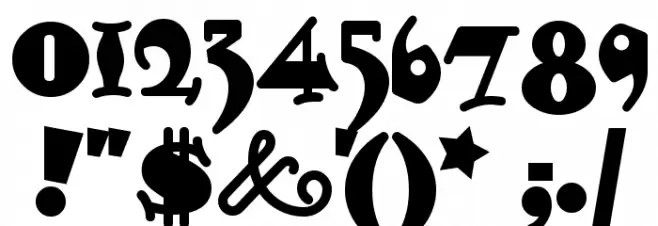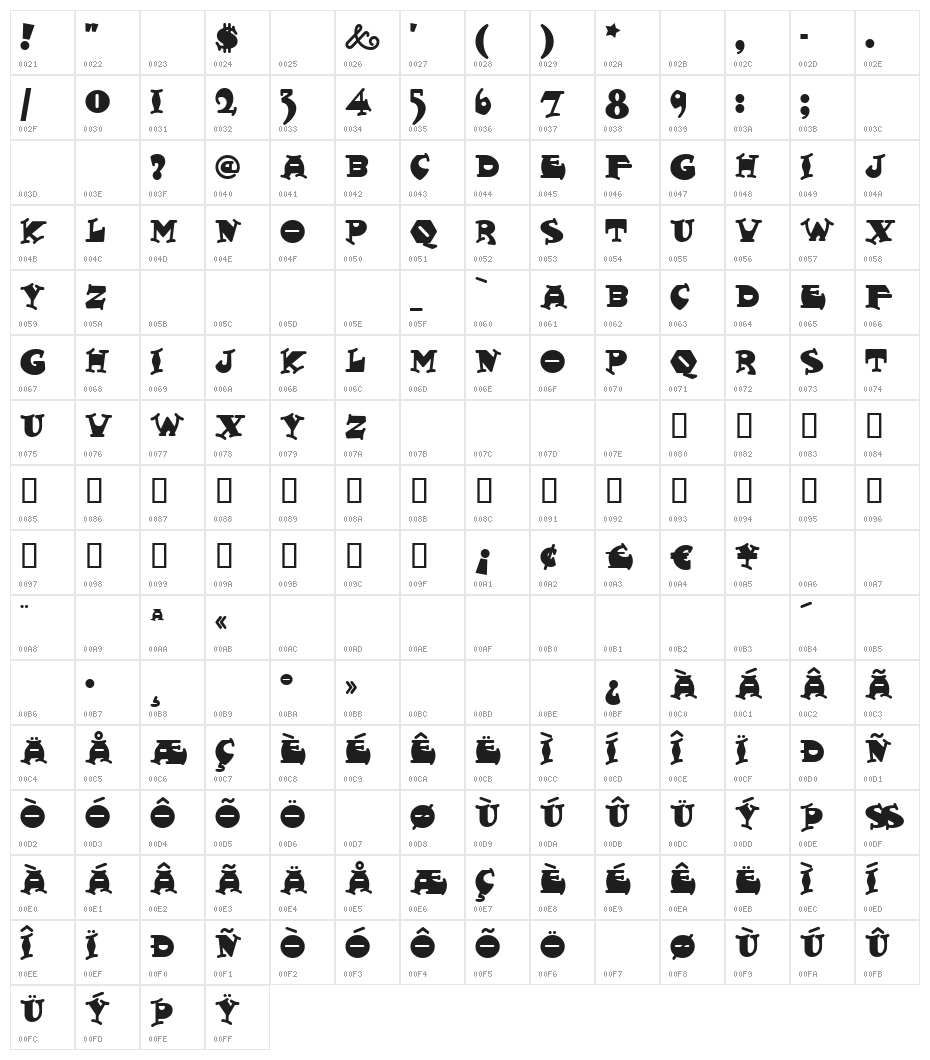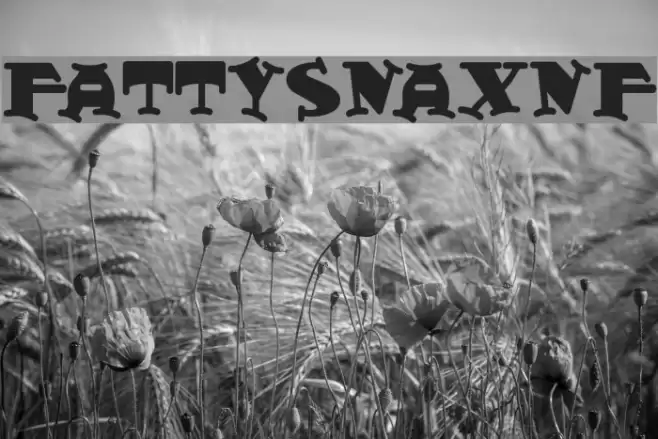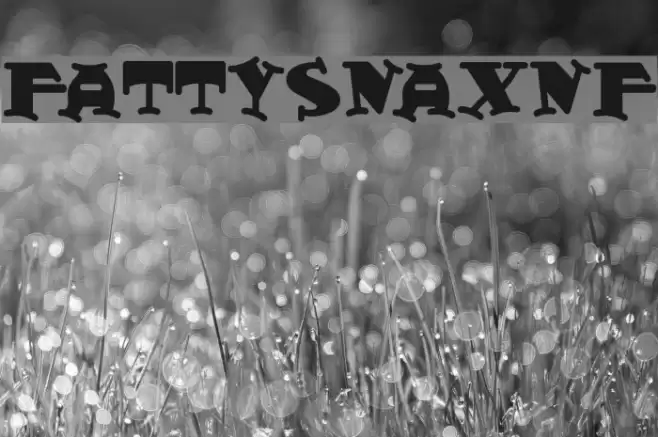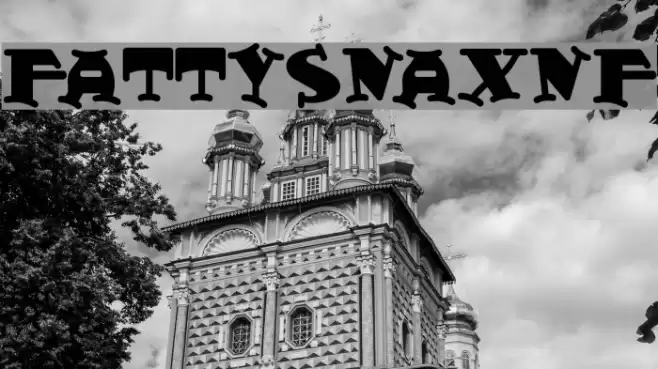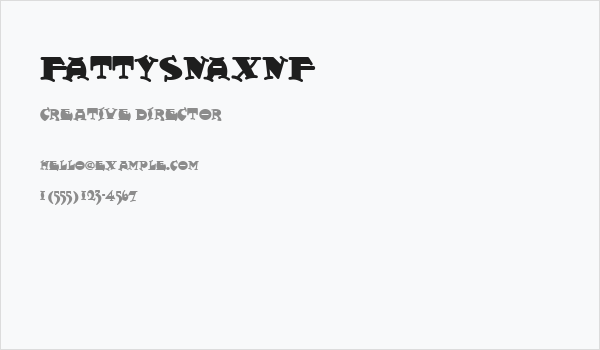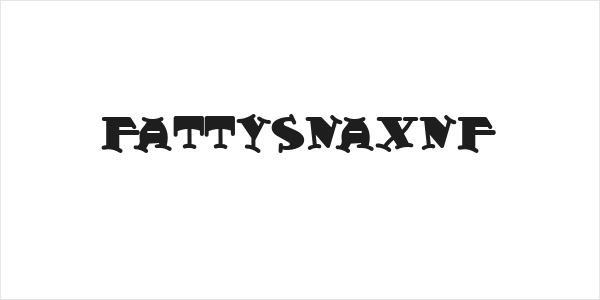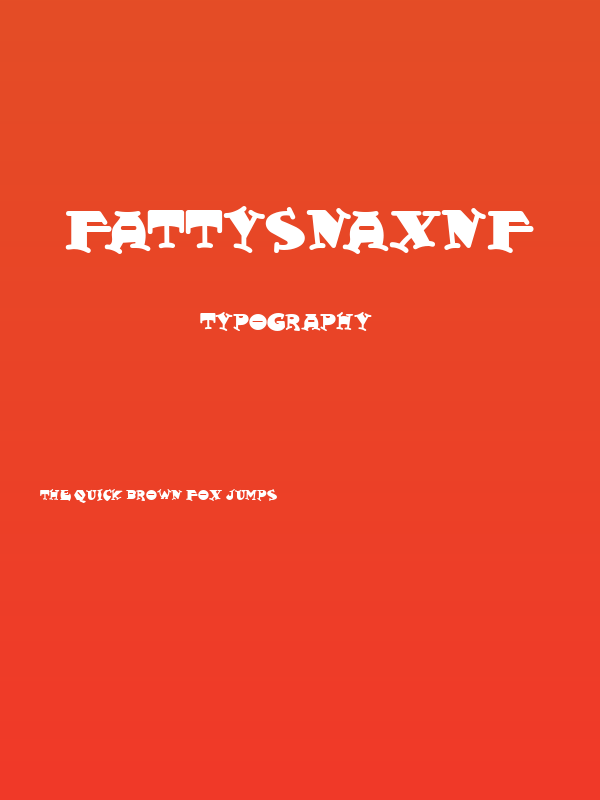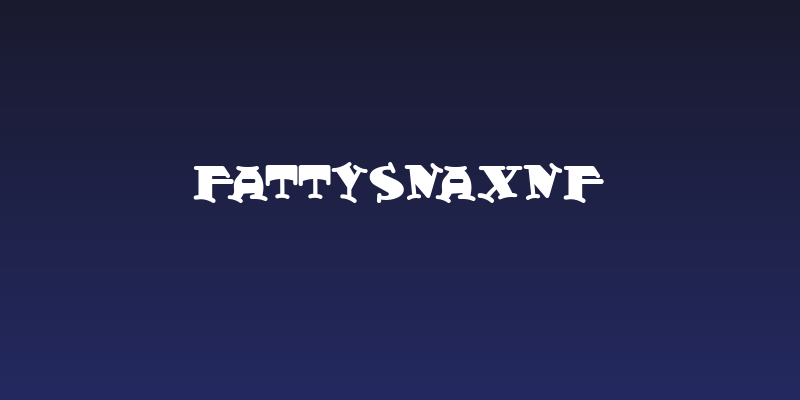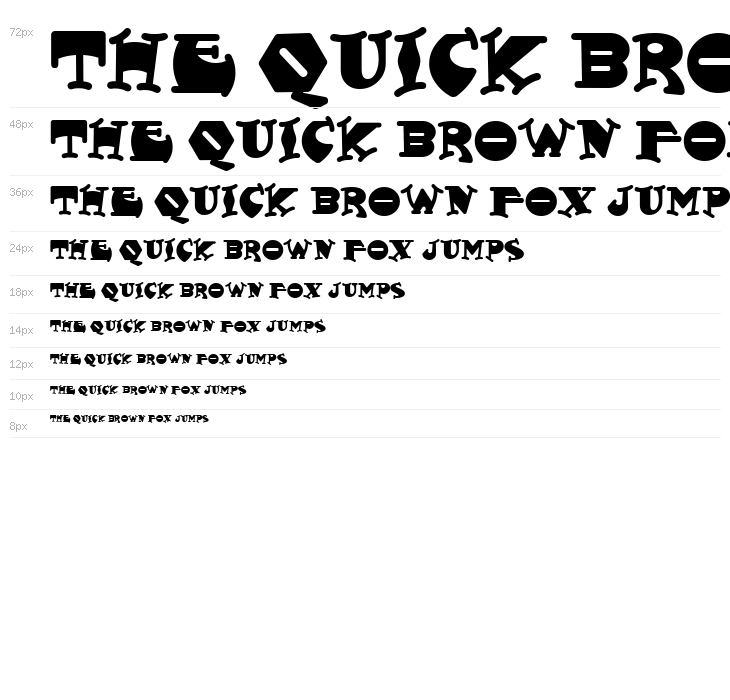
FattySnaxNF Font
FattySnaxNF Description
This font features a bold and playful design with exaggerated serifs and a whimsical style. The characters are thick and robust, with a unique blend of curves and sharp angles that create a dynamic and eye-catching appearance. The uppercase and lowercase letters maintain a consistent weight, providing a cohesive look across the alphabet. The numbers and special characters are equally bold, with distinctive shapes that add to the font's overall charm. This font is ideal for projects that require a fun and engaging aesthetic.
| Proposed Projects | Perfect for children's books, playful branding, posters, and party invitations. |